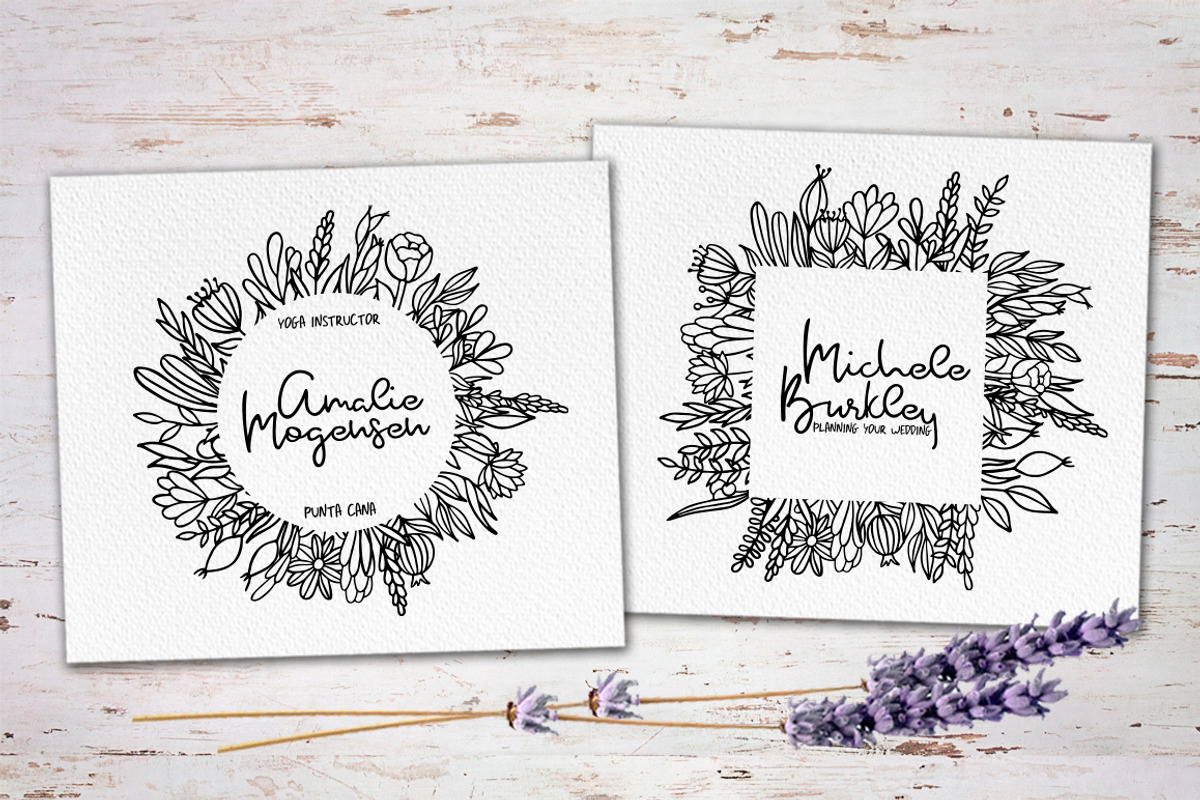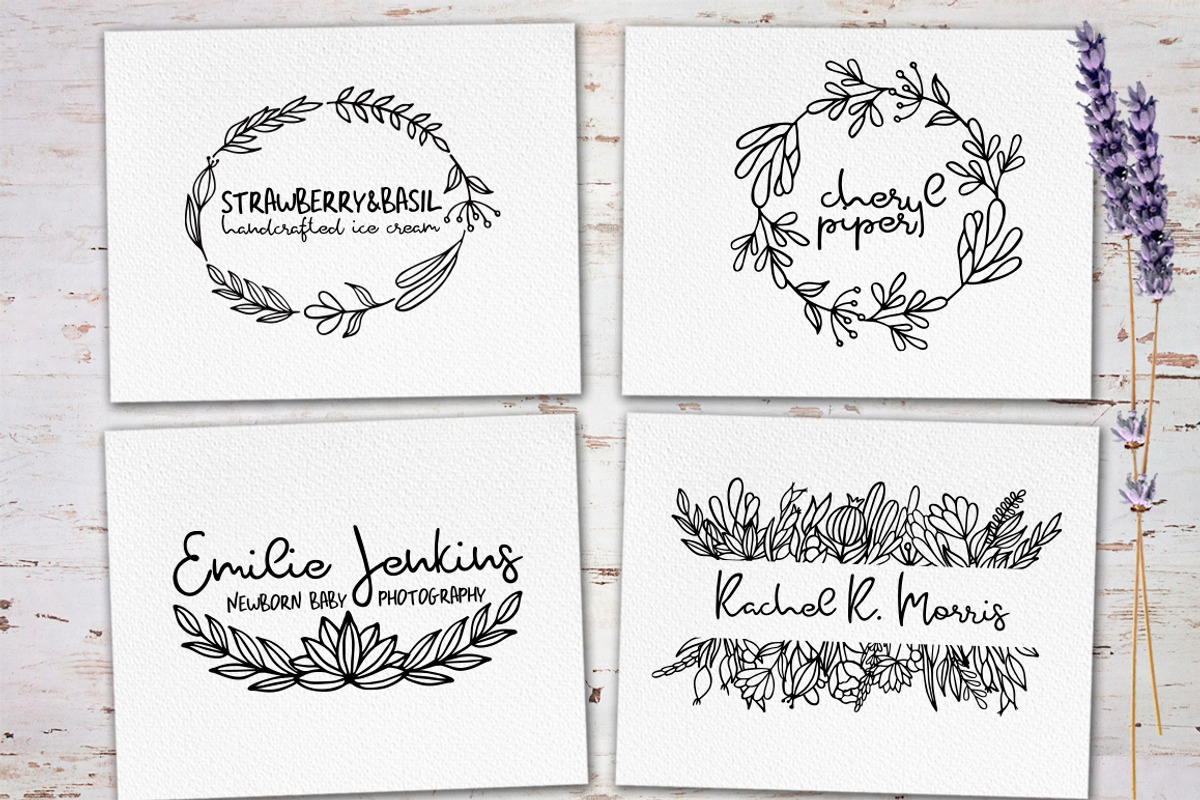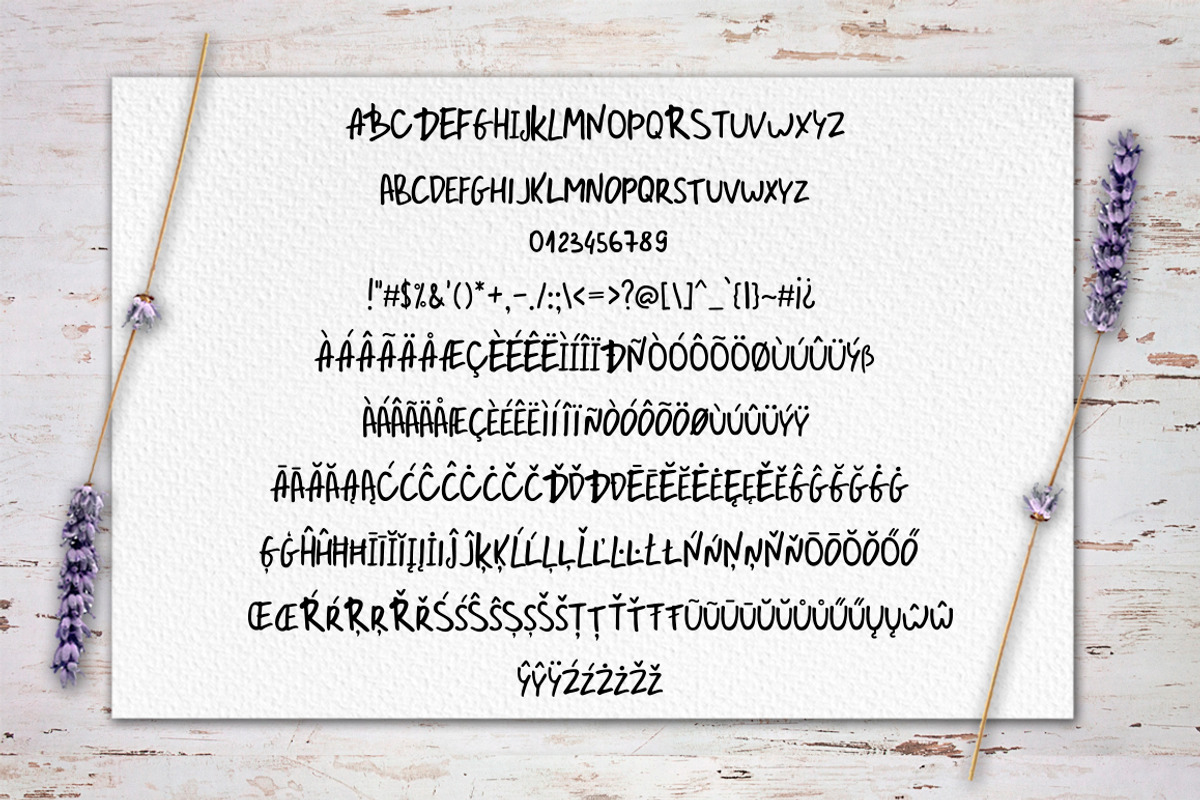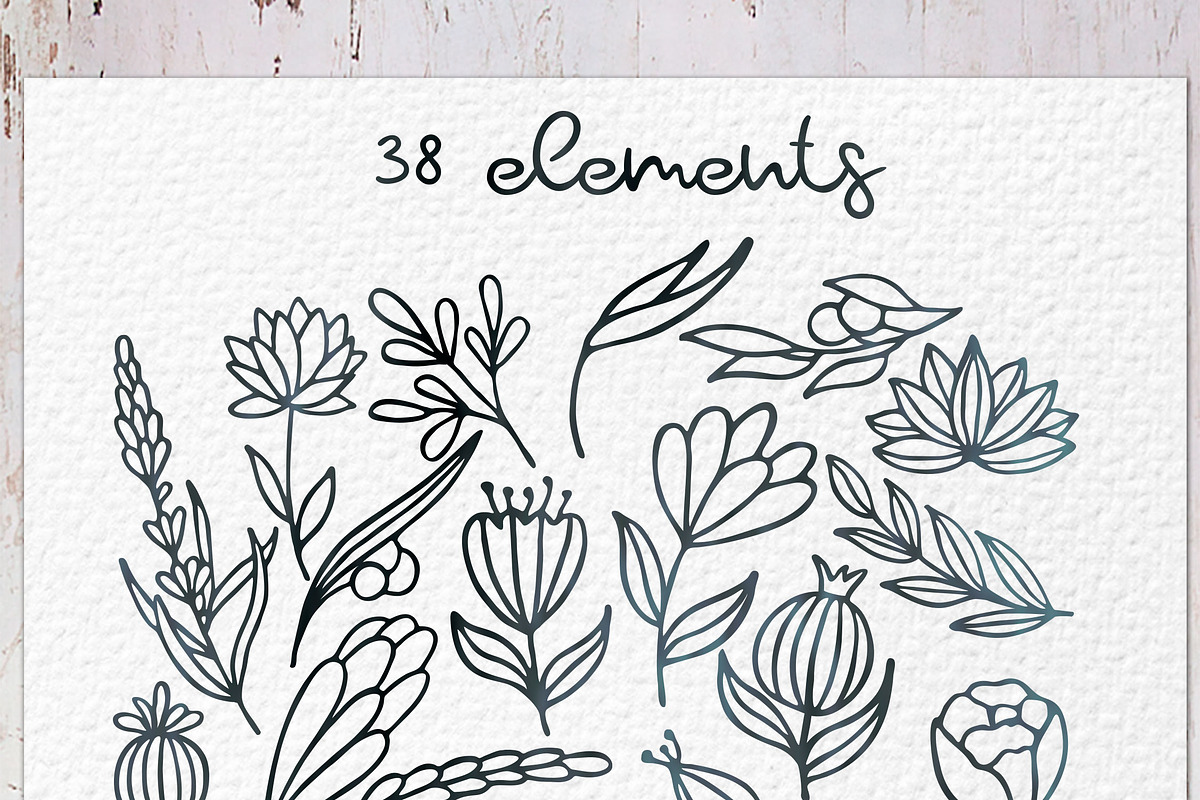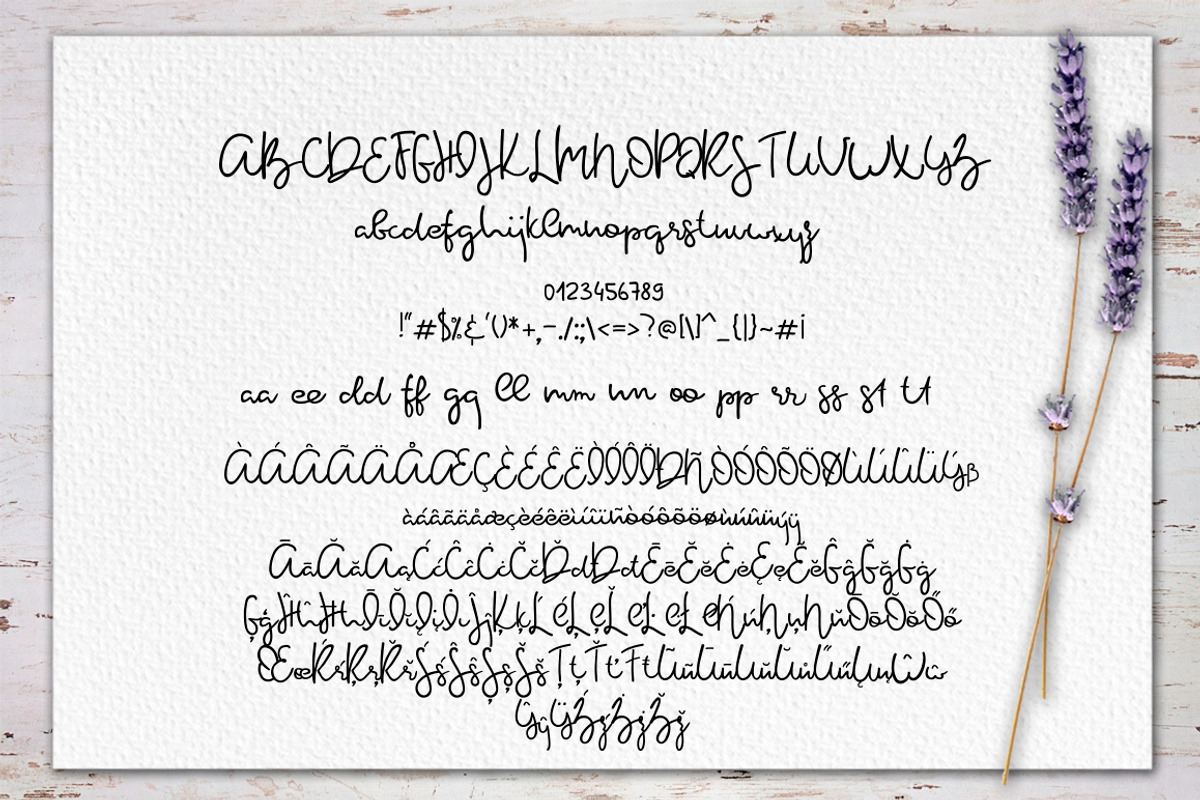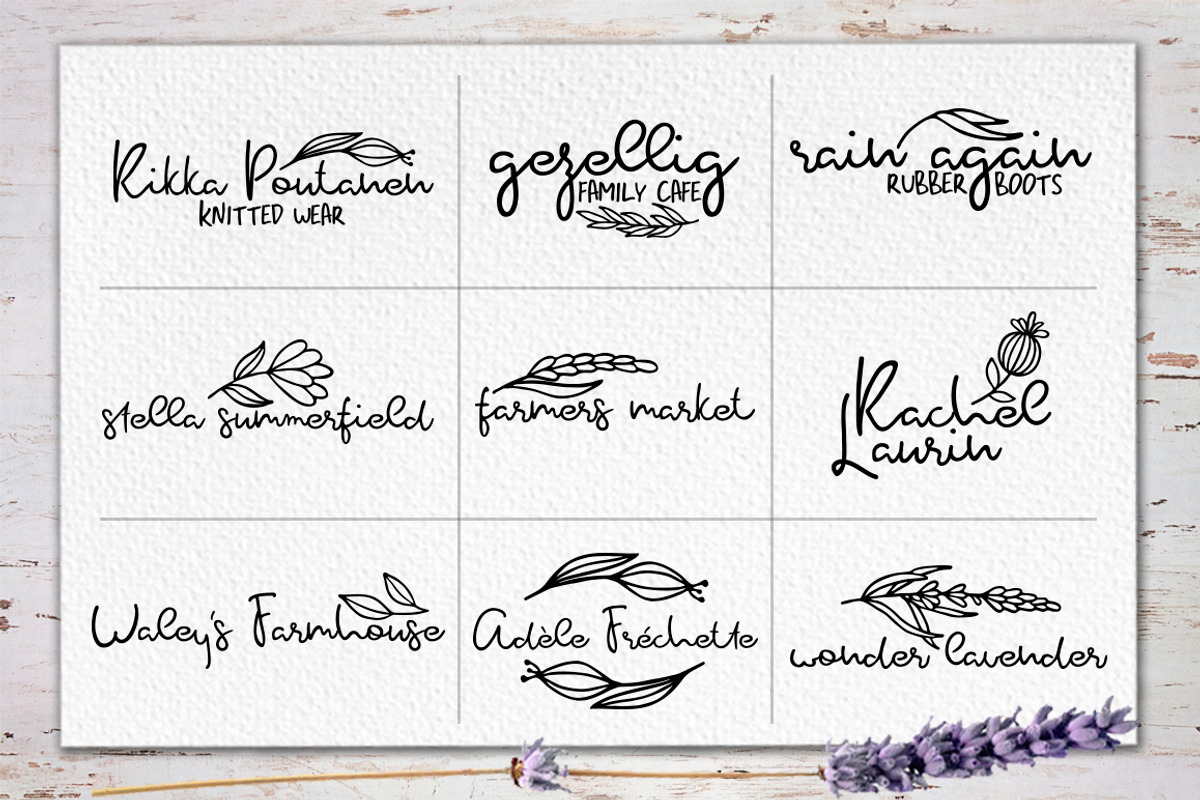
Rosemary & Lavender.Font duo+logos
Rosemary and lavender - it's a handwritten font duo and illustrations. Perfect for logos
With these elements you can create a huge number of logos for you and your customers♥
These fonts have multilingual support ( ÀÁÂÃÄÅÆÇÈÉÊËÌÍÎÏÐÑÒÓÔÕÖØÙÚÛÜÝß ĀĂĄĆĈĊČĎĐĒĔĖĘĚĜĞĠĢĤĦĪĬĮİĴĶĹĻĽĿŁŃŅŇŌŎŐŒŔŖŘŚŜŞŠŢŤŦŨŪŬŮŰŲ ŴŶŸŹŻŽ)